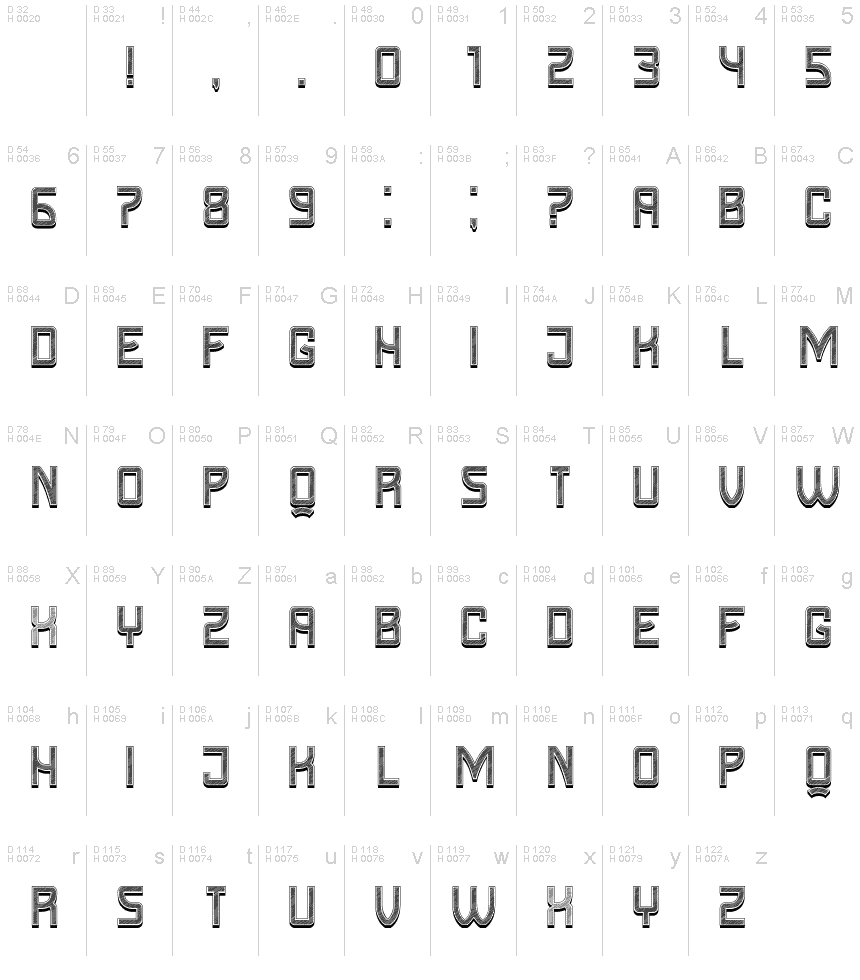
Oktoberfest 1980 Regular
Oktoberfest 1980 font is a 3d retro typeface designed by Vladimir Nikolic.
"Oktoberfest 1980" comes in Regular, White, and Flat versions!